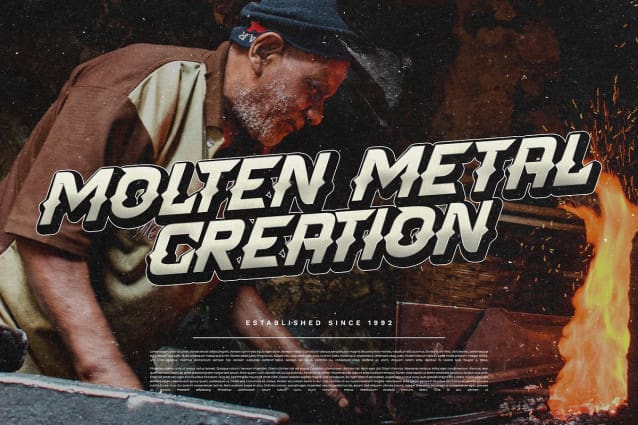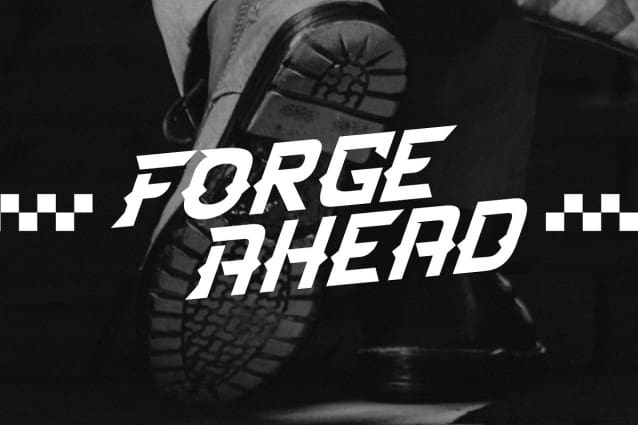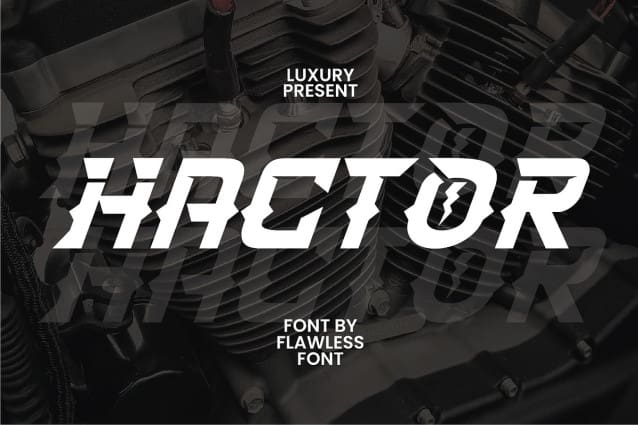
Hactor Display Font
Hactor Display Font a bold and impactful display sport typeface designed to make a statement. With its strong letterforms and athletic-inspired design, Hactor brings a sense of power and competitiveness to your sports-related projects. This font is suitable for branding, business, logos, magazines, and others.